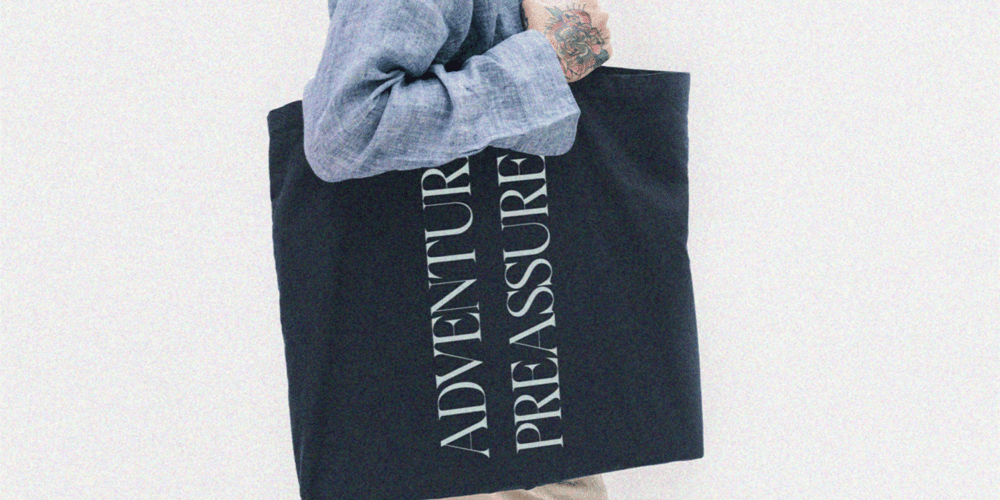
Yagi Font Family was designed by Amrullah Medan, Amrullah, Dedi Purwanto and published by Ably Creative. Yagi contains 2 styles and family package options. Yagi is a serif typeface that contrasts with old-fashioned proportions creating a more defined texture than your usual sans-serif, and Yagi is elegant enough for fashion, art, and luxury; yet sincere enough for serious business. And at 2 styles, ready for complex typographic demands. When we started this project, we wanted to try drawing modern serifs with accurately verified shapes and detailed elaboration of each character, making your text look great both on paper and on screen. Yagi creates unique and organic characters, with different sets of styles, you can change the feel of your designs from more organic to more standard. Let your designs fly!